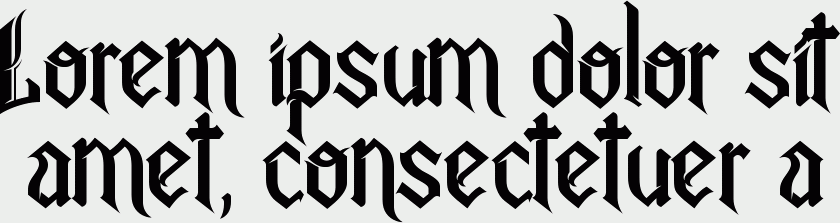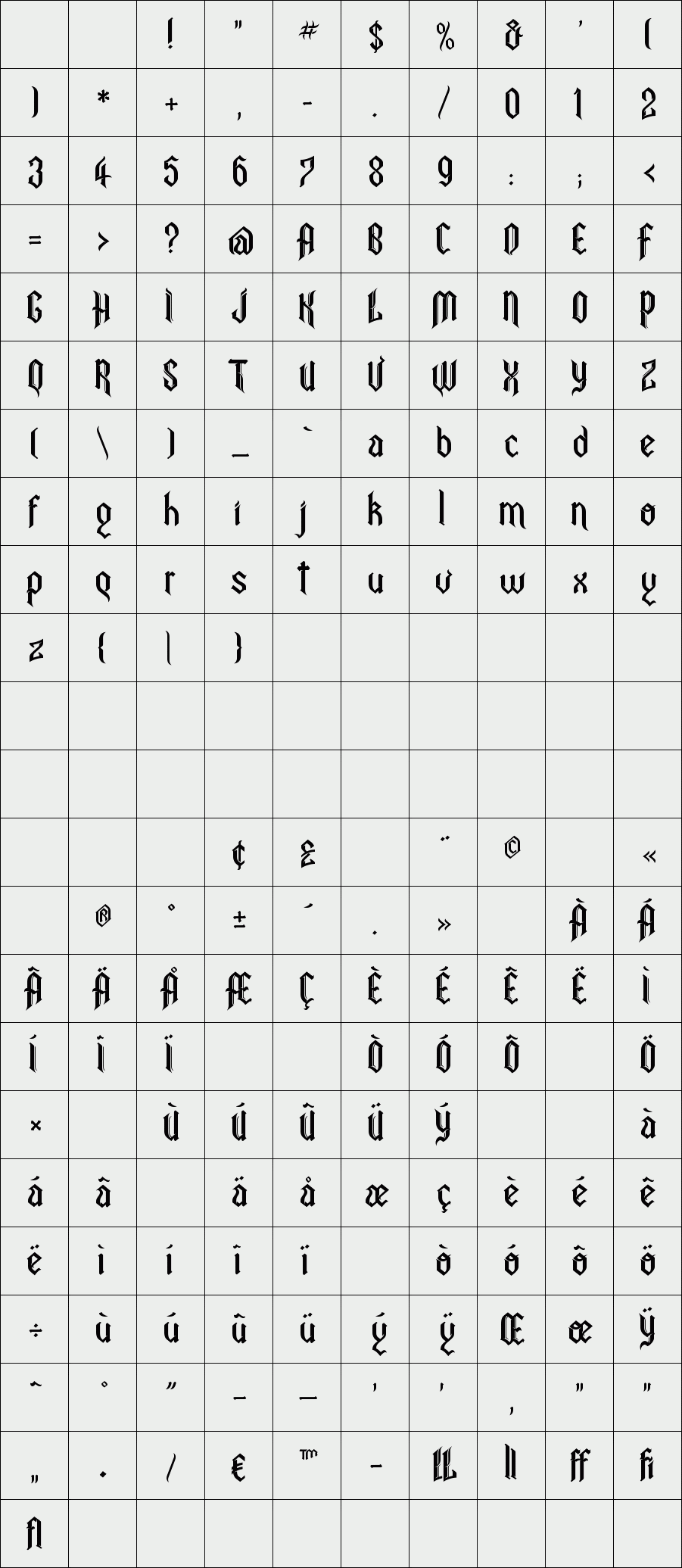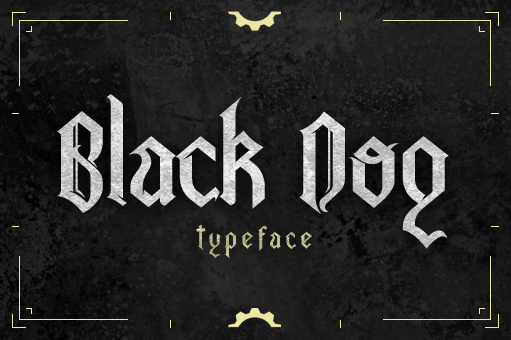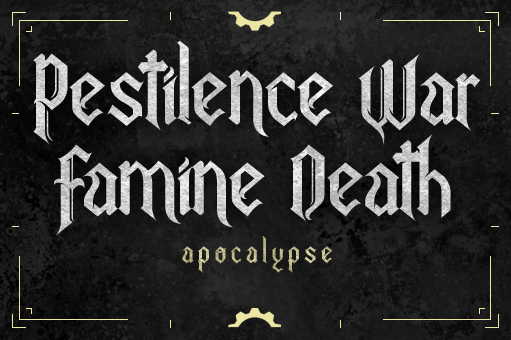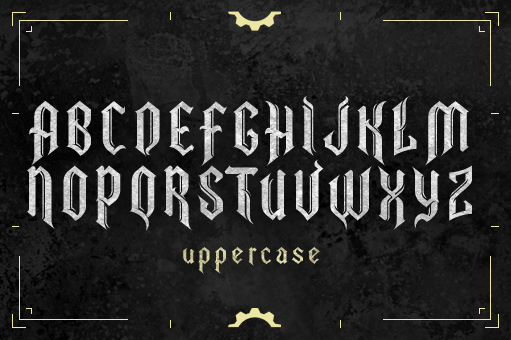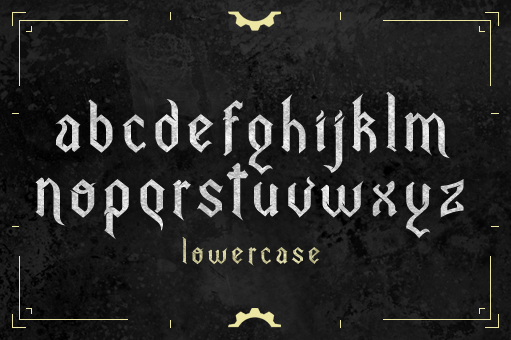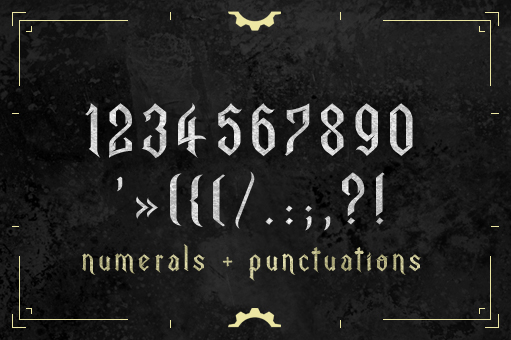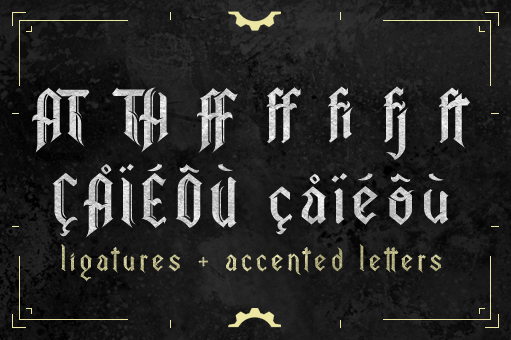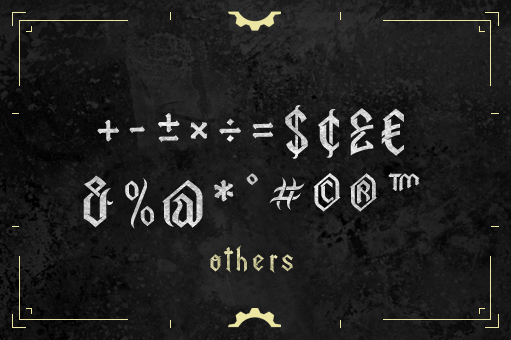
BLACK DOG
Black dog is a decorative font inspired by Metal music, and Gothic lettering.
It works well for posters, t-shirts or flyers ; and can be easily read, even in a small size.
Available in uppercase, lowercase, numerals, ligatures and punctuations.